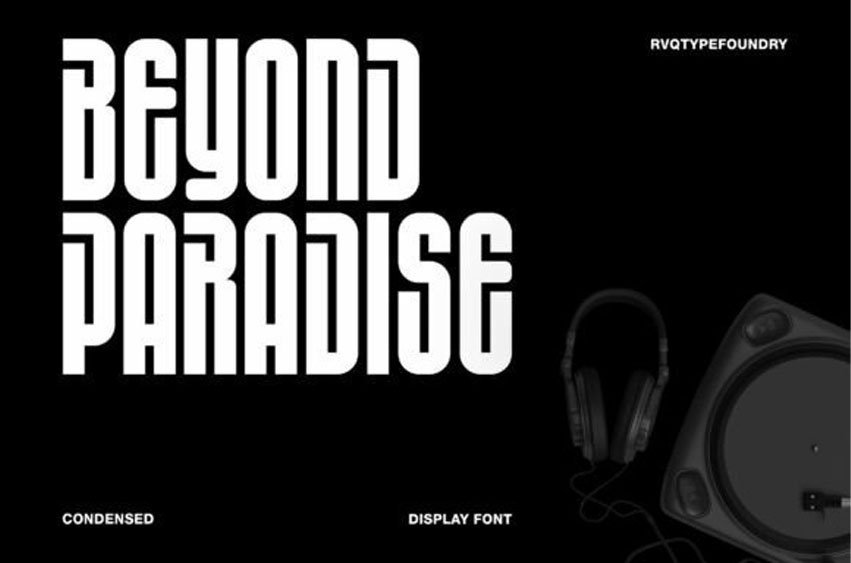
Beyond Paradise Font
Beyond Paradise Font is condensed display font delivers a bold, striking presence with its tall, tightly spaced letterforms perfect for making a strong visual impact.
Designed to command attention, it combines modern minimalism with a powerful urban edge, making it ideal for headlines, branding, posters, and streetwear designs. Its clean lines and compact structure maximize space without sacrificing readability, allowing your message to stand out with confidence and style. If you’re looking to create a design that feels both contemporary and assertive, this font is the perfect choice.
– Stylistic Alternates.
– Ligature